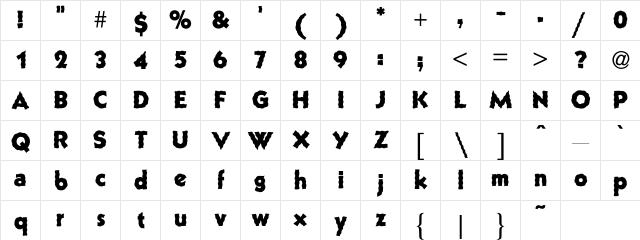
Beach Wave Regular
Complete Beach Wave Regular glyph index. Displaying only characters natively supported by Beach Wave Regular font.
Design Context for Beach Wave
Beach Wave is a composed and adaptable typeface that performs quietly and consistently across a wide range of design contexts.
Pro Tip: Use Beach Wave in both headline and body roles to test its range before committing to a single application.